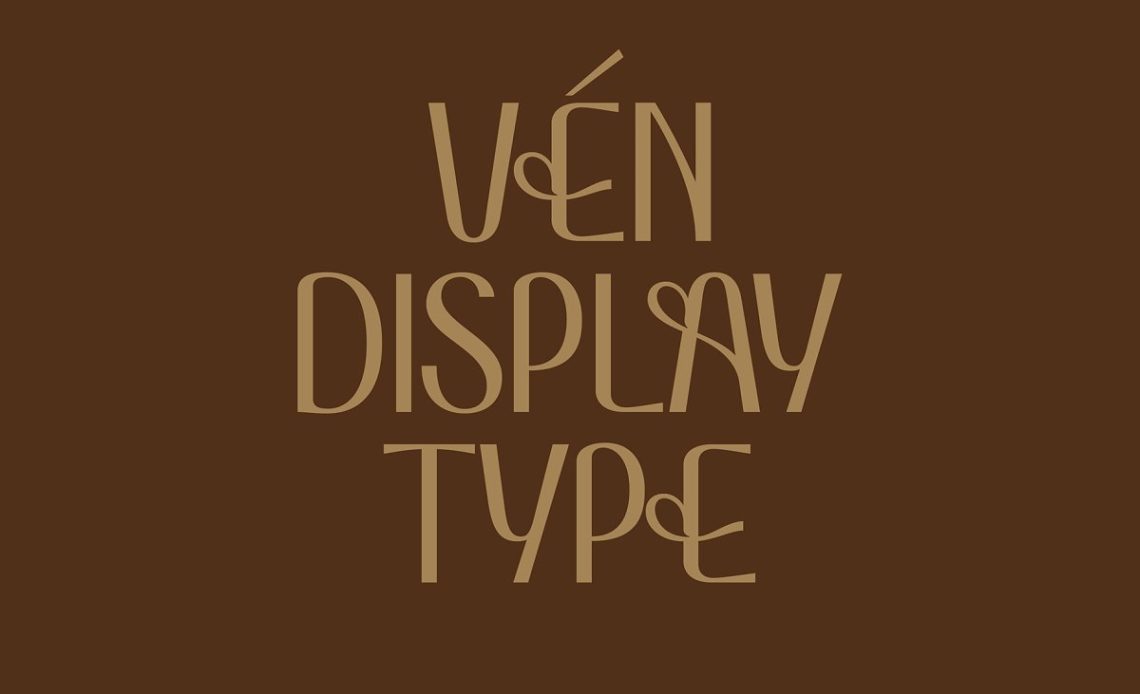
Introducing VEN - Display Typeface, the epitome of elegance and allure in the world of fonts. Created by the talented Dat Trong Do, this font family pays homage to the rich cultural heritage of Vietnam, specifically the Vietnamese Ao Dai and the iconic Conical Hat.
Imagine the grace of a Vietnamese woman dressed in an Ao Dai, her every movement exuding a captivating aura of mystery and femininity. VEN embodies this very essence, capturing the delicate curves and intricate details of the Ao Dai in each letterform.
But VEN doesn't stop there - it goes beyond aesthetics to embrace the very soul of Vietnam. The font's design seamlessly integrates the tone marks of the Vietnamese language with the iconic Conical Hat, creating a harmonious fusion of tradition and modernity.
With VEN, your words become an exquisite work of art, effortlessly conveying emotions and captivating your audience. Whether you're designing a logo, creating stunning graphics, or crafting an unforgettable website, this font will elevate your creations to a whole new level of sophistication and elegance.
But don't just take our word for it. Experience the beauty and allure of VEN for yourself. Let your creativity soar as you explore the endless possibilities this font offers. Its versatility allows it to shine in any context, from fashion and beauty to travel and lifestyle.